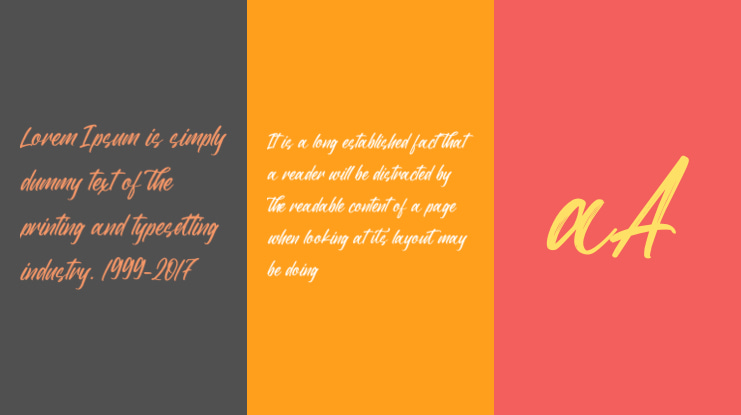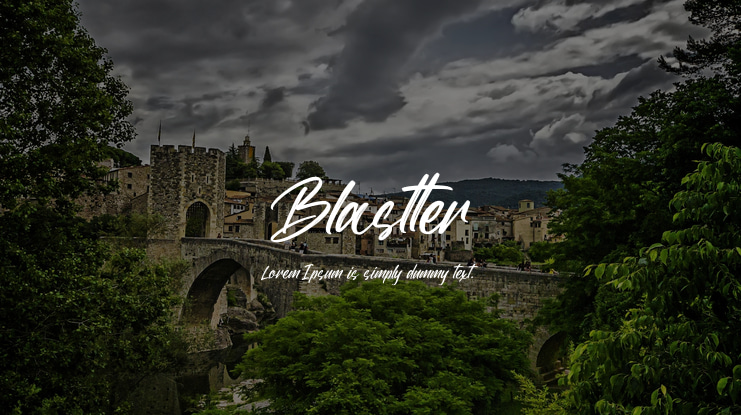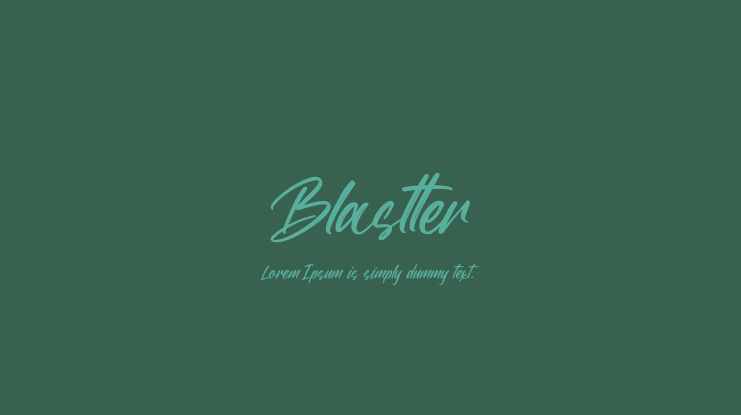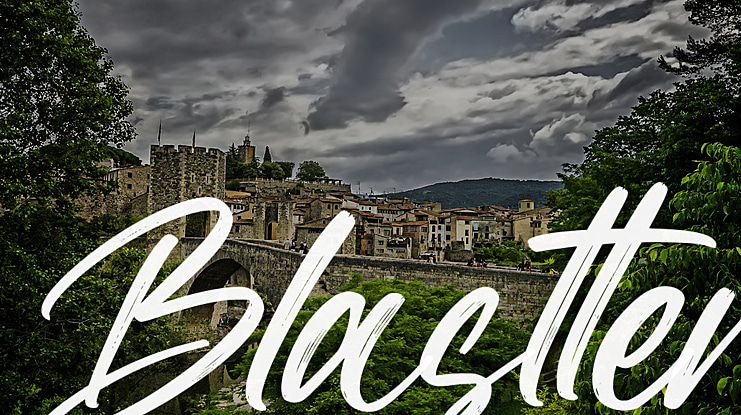
Blastter Font
This is a beautiful hand-brushed font, designed by Rockboy Studio. It is suitable for any branding, product packaging, invitation, quote, t-shirt, label, poster, logo that you wish to create.